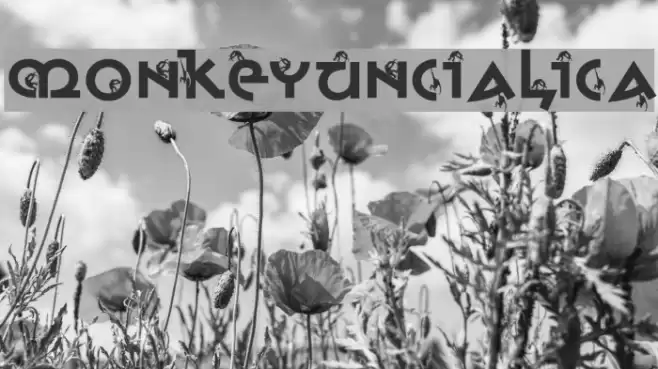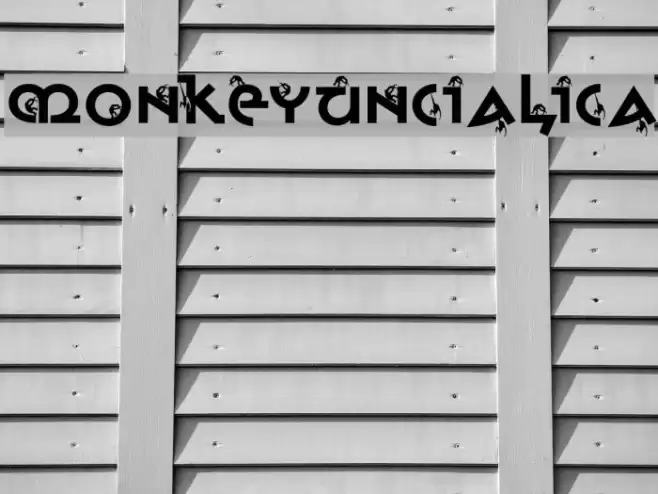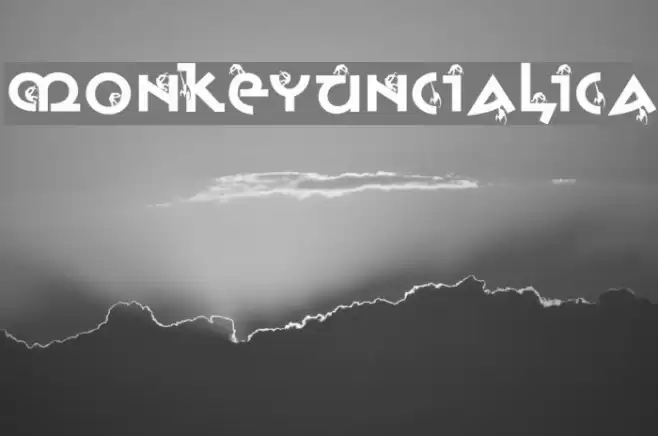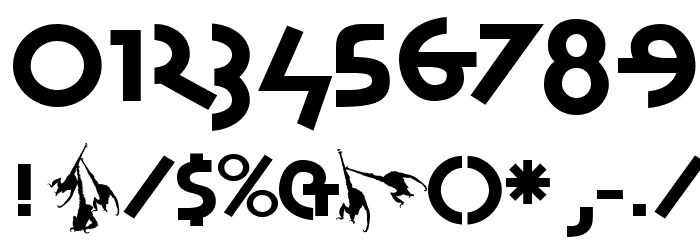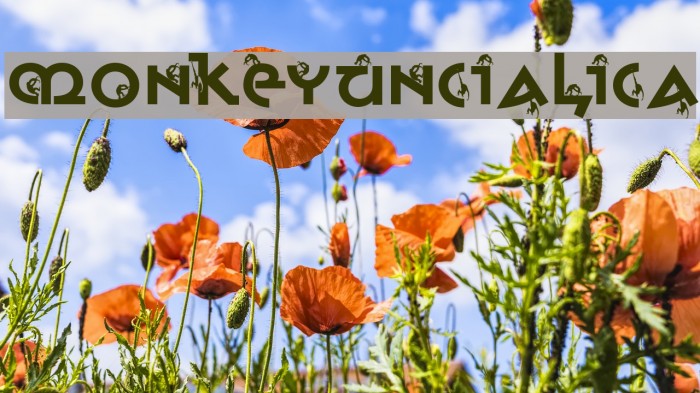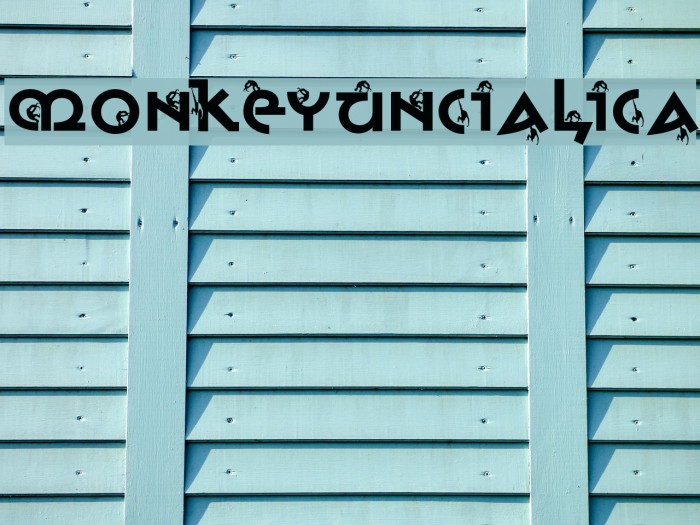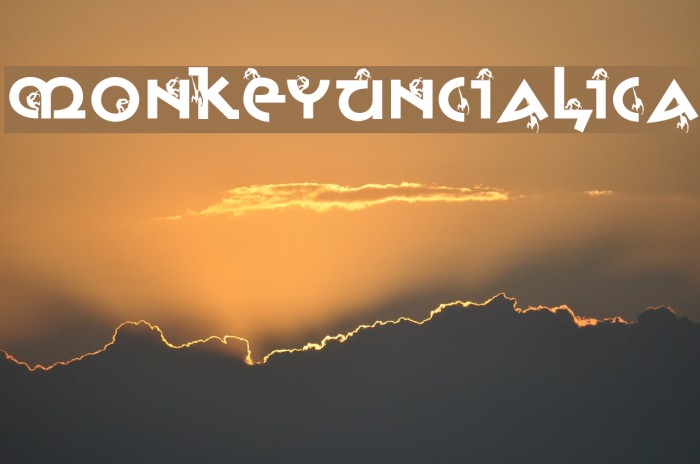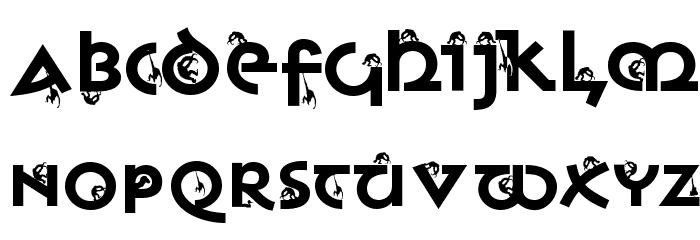
MonkeyUncialica Font
MonkeyUncialica Description
This font features a unique and playful design, incorporating whimsical elements that resemble monkeys within the letterforms. The characters are bold and have a decorative flair, making them stand out with their distinctive style. The uppercase and lowercase letters maintain a consistent theme, with each character having a quirky, artistic twist. The numbers and special characters follow the same playful design, ensuring a cohesive look throughout. This font is perfect for projects that require a fun and eye-catching typeface.
A playful, decorative font with whimsical monkey elements in each character from Uncategorized fonts.
- Proposed Projects: Ideal for children's books, playful branding, themed event invitations, and creative posters.